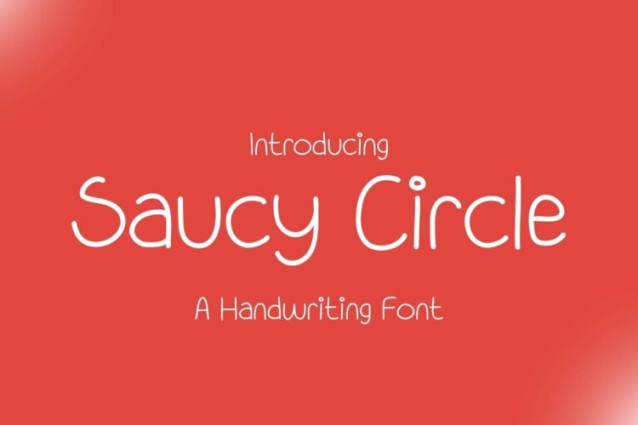
Saucy Circle Font
Saucy Circle Font is a simple and friendly handwritten font. Its natural and unique style makes it incredibly fitting to a large pool of designs. The only limit is your imagination!